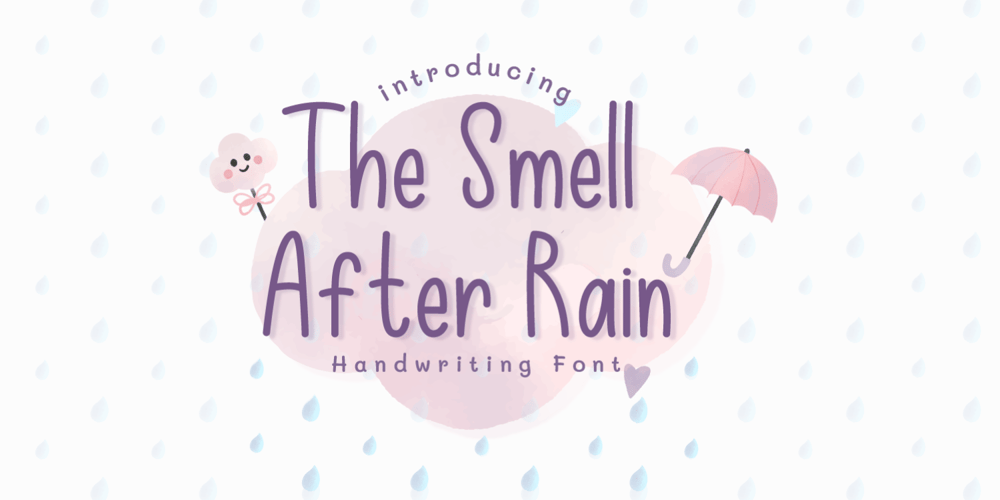
The Smell After Rain
The Smell After Rain font
The Smell After Rain Font Family was designed by Miftahul Habib and published by Tlatous Type. The Smell After Rain contains 1 styles and family package options. Introducing The Smell After Rain by Tlatous Type.The smell after rain is a Modern Handwritten Font.this font is perfect for product packaging, branding project, megazine, social media, wedding, or just used to express words above the background.